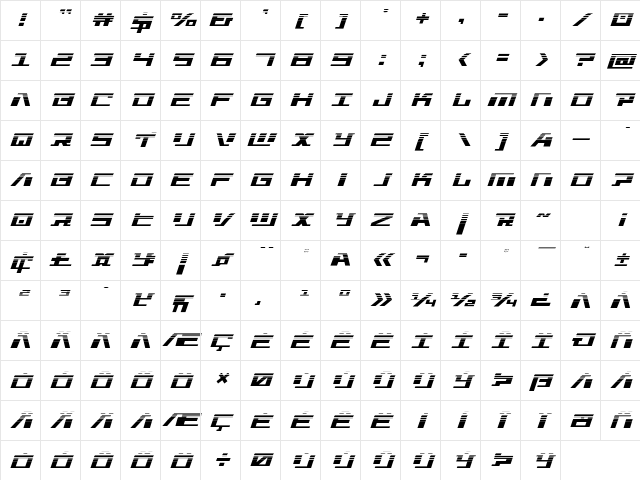
War Machine Halftone Italic
Complete War Machine Halftone Italic glyph index. Displaying only characters natively supported by War Machine Halftone Italic font.
Design Context for War Machine Halftone
War Machine Halftone is a composed and adaptable typeface that performs quietly and consistently across a wide range of design contexts. The slanted form adds forward momentum and visual energy.
Pro Tip: Use War Machine Halftone for emphasis, pull quotes, and subheadings where its slanted energy can add rhythm to the layout.